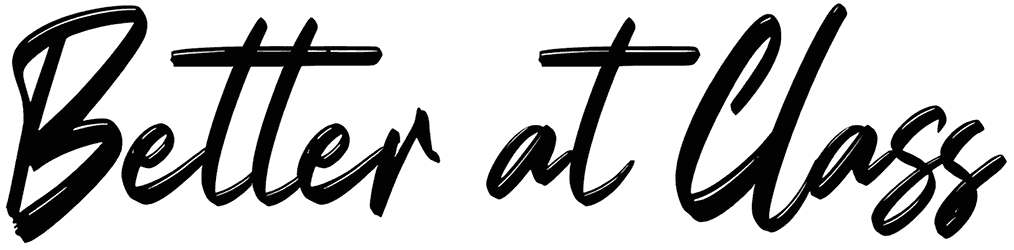
Better at Class Font
If you like modern and urban styles, this brush font can make it for your design. Better at Class has a matchable hand-lettering face with a cool and beautiful mood. It doesn’t support all of the numbers, but could still be a nice illustration for various designs such as textiles, logos, banners, posters, and so on.